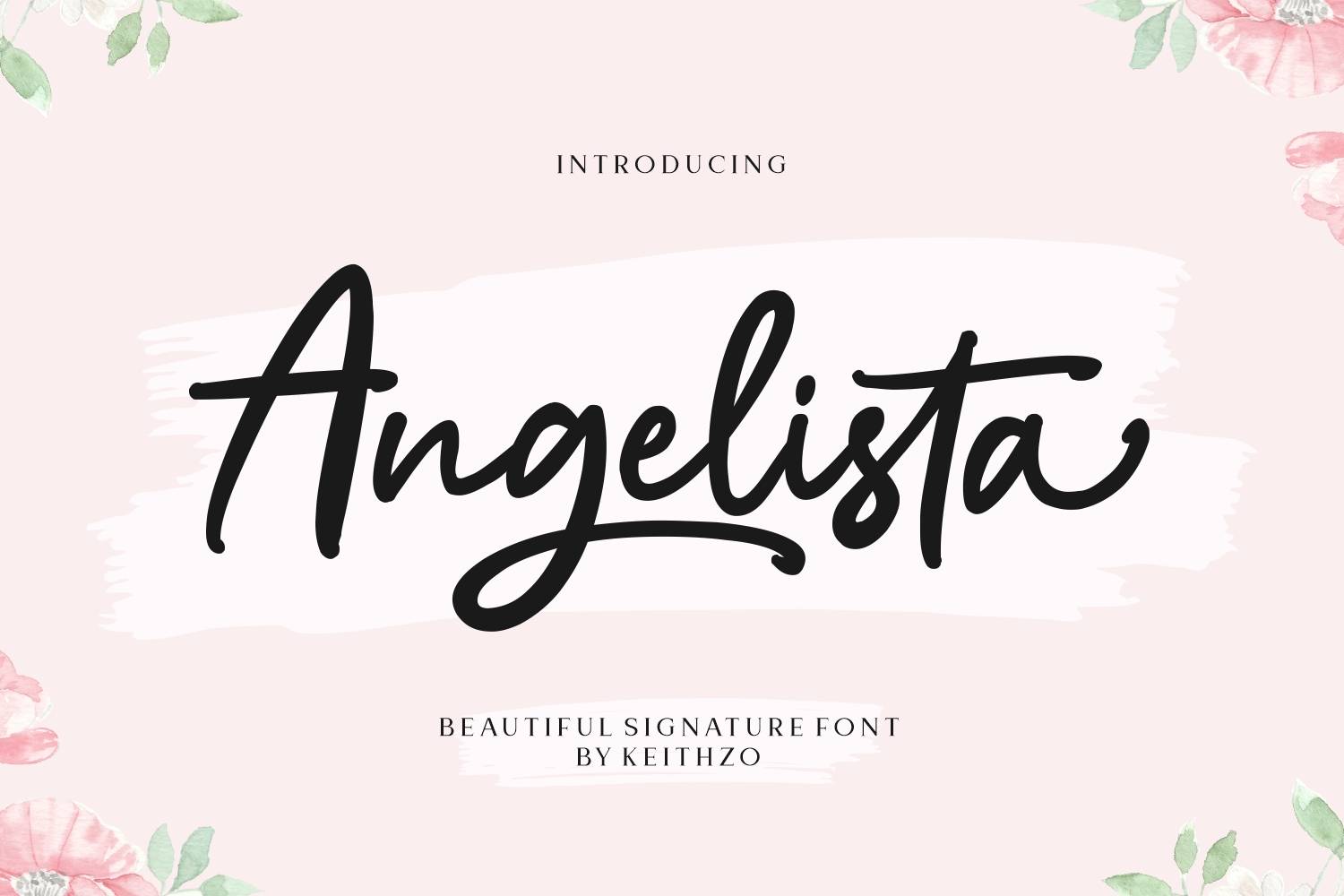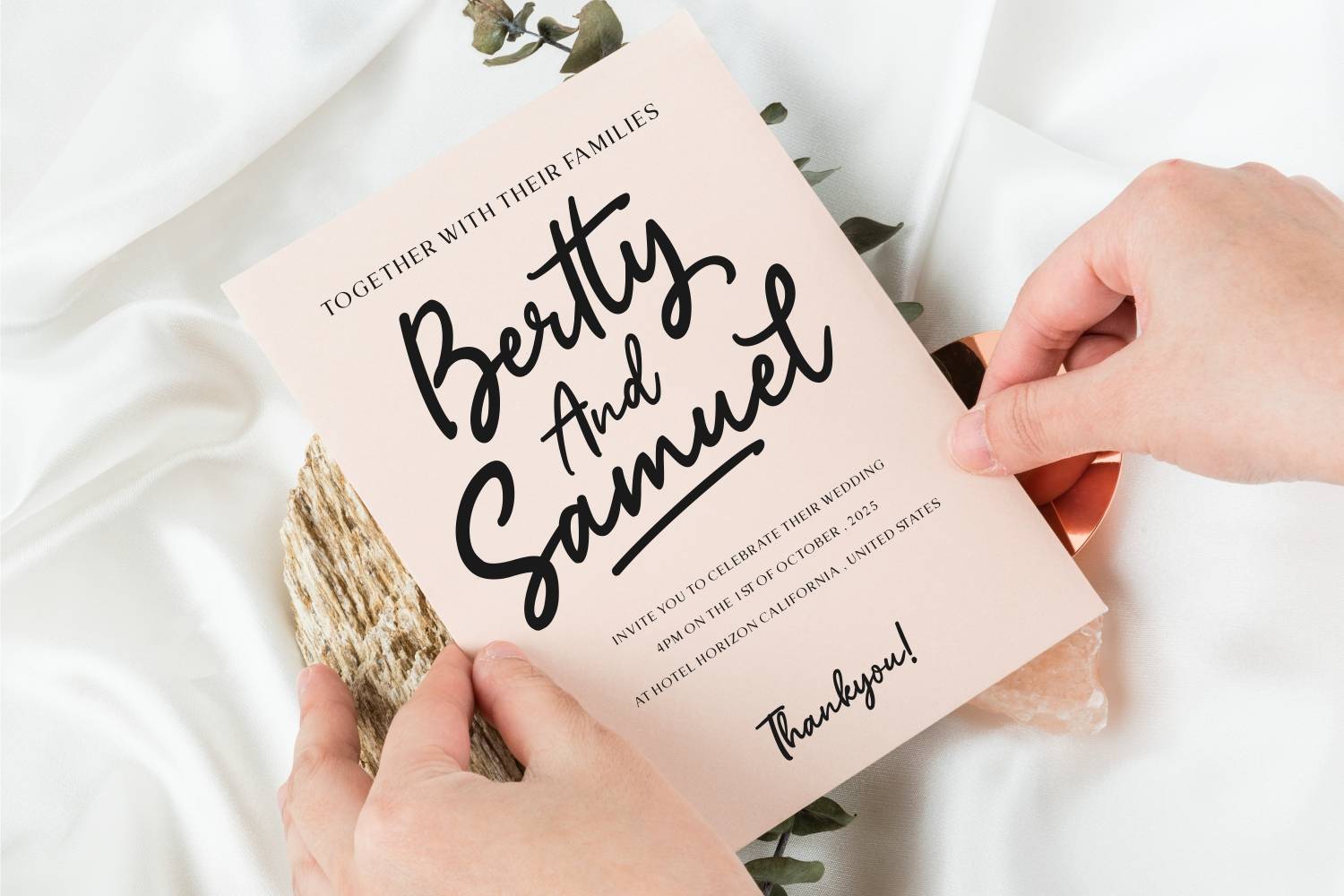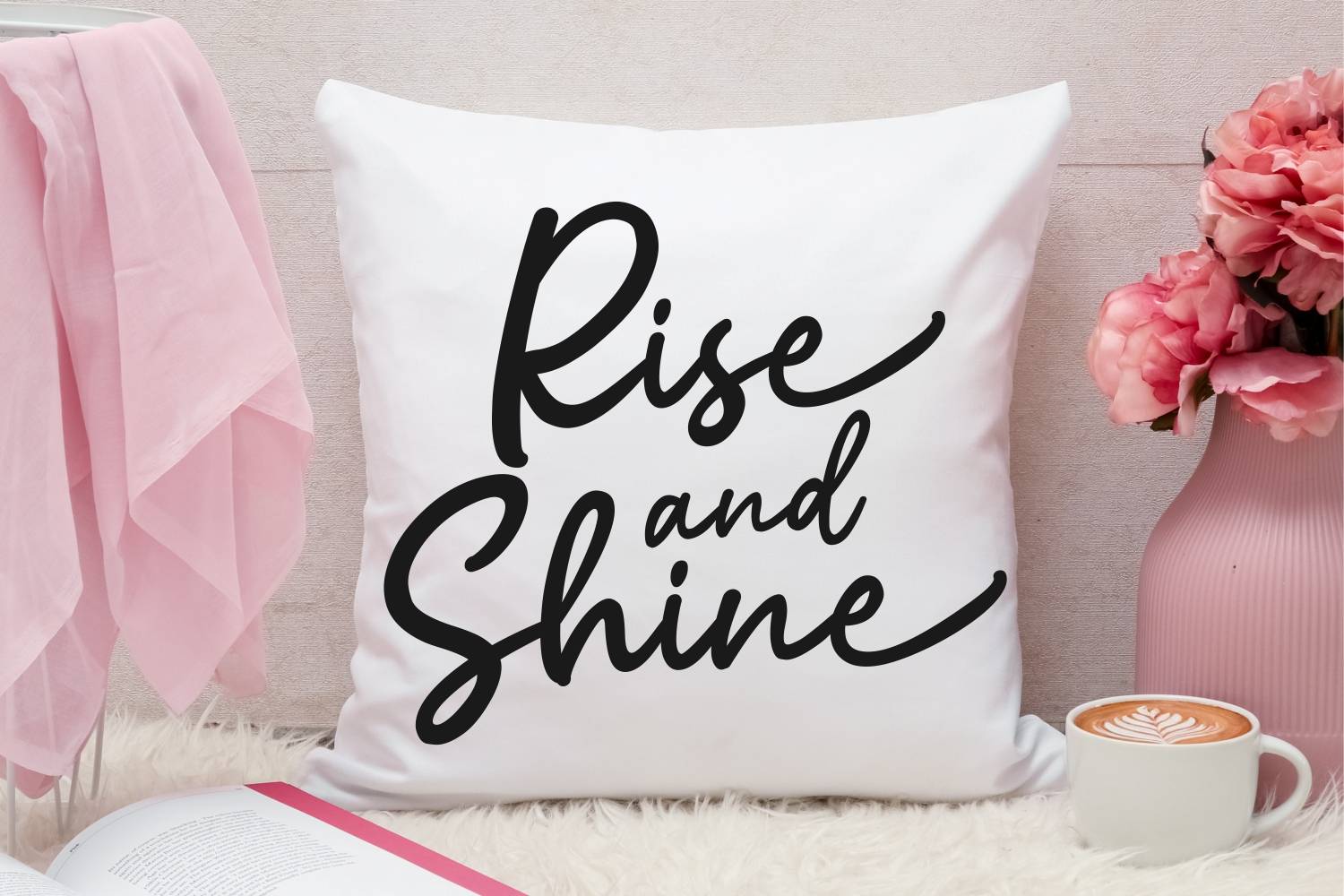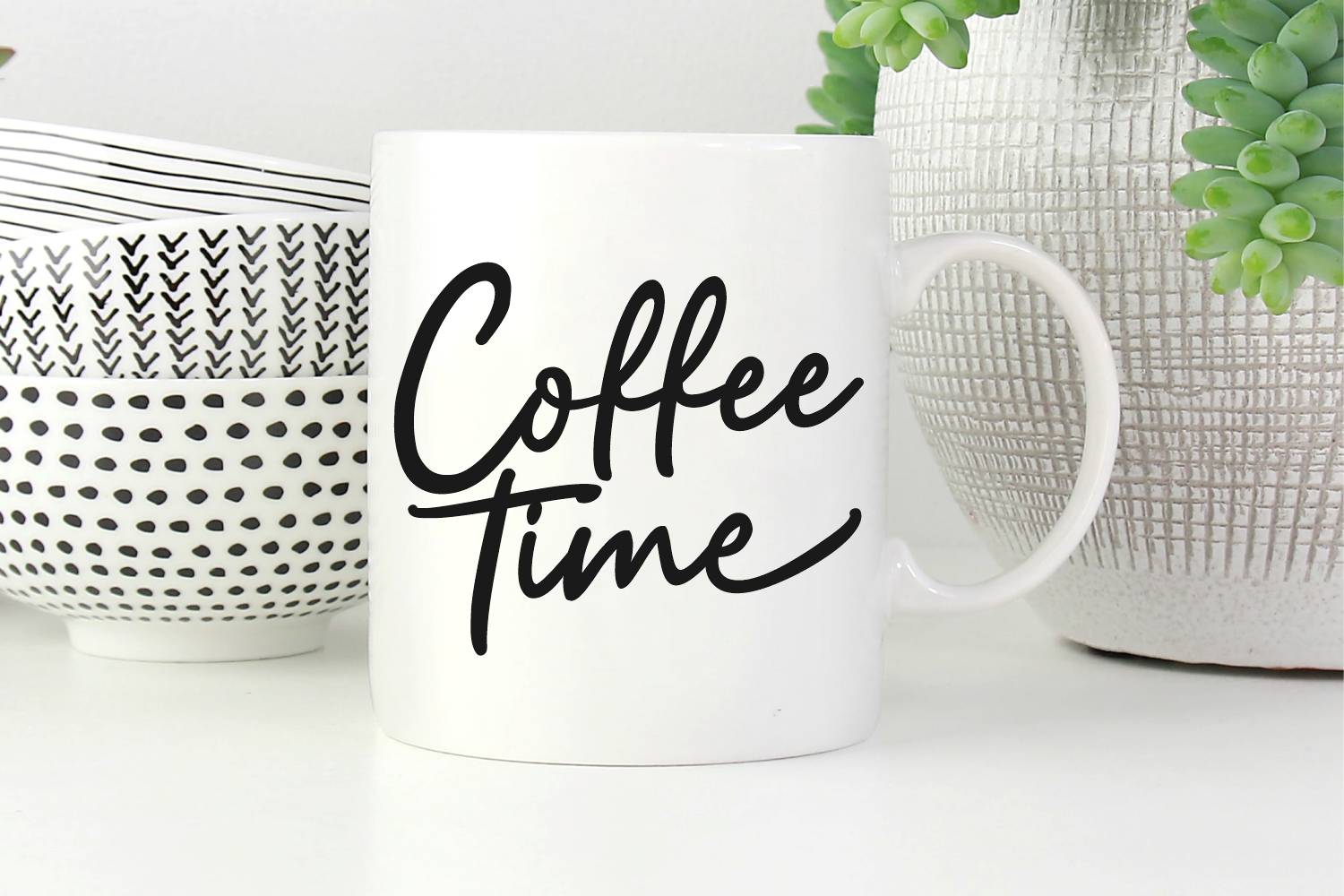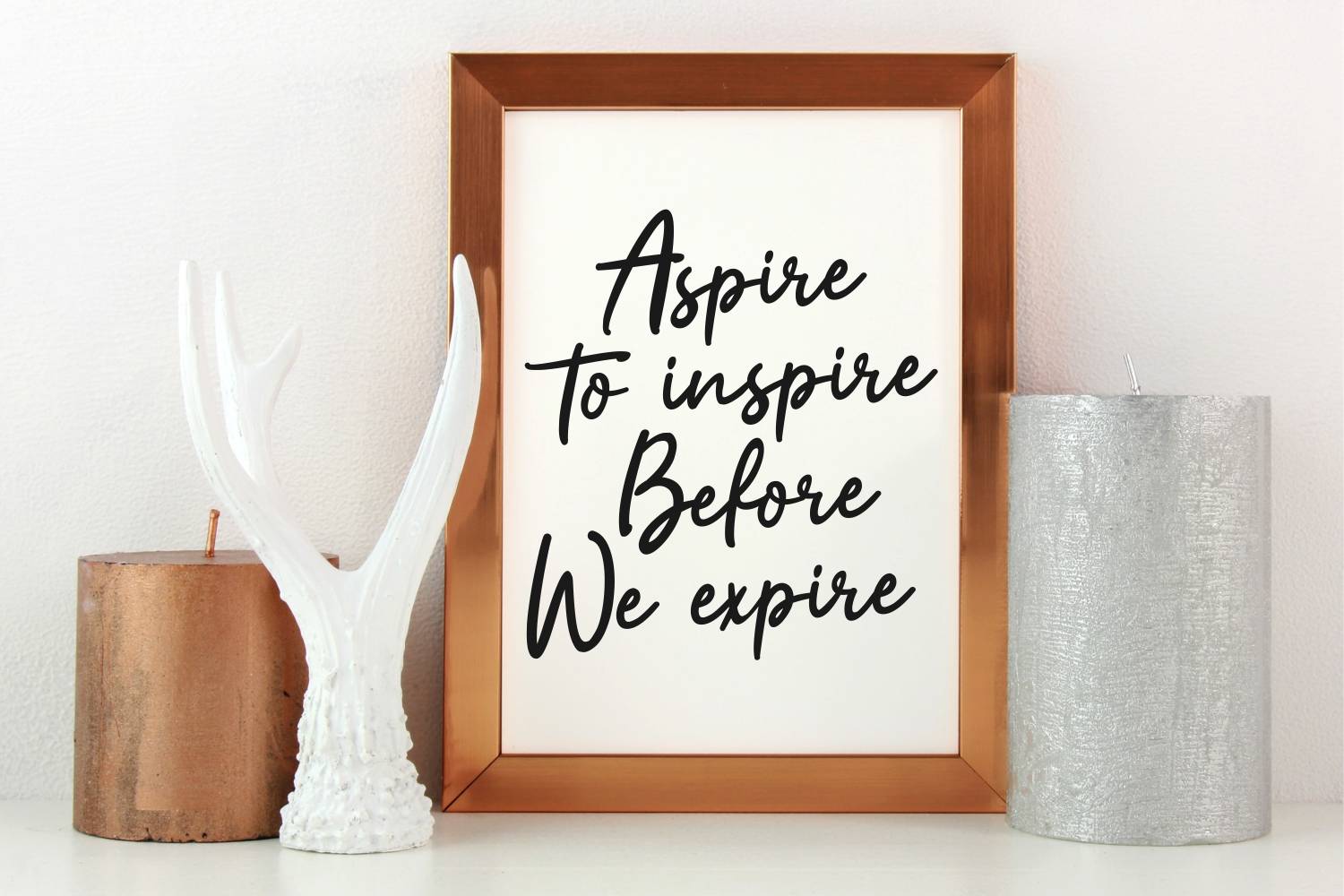
Angelista is a lively handwritten script font with a casual, modern feel, featuring smooth, flowing strokes and a medium weight that adds warmth and personality. Its elegant yet approachable letterforms make it ideal for branding, invitations, and creative projects that seek a friendly, personal touch. This font works well in logos, headlines, and social media graphics where a stylish but readable script is desired.
Angelista Font
About Angelista Font
| Designer | Keithzo |